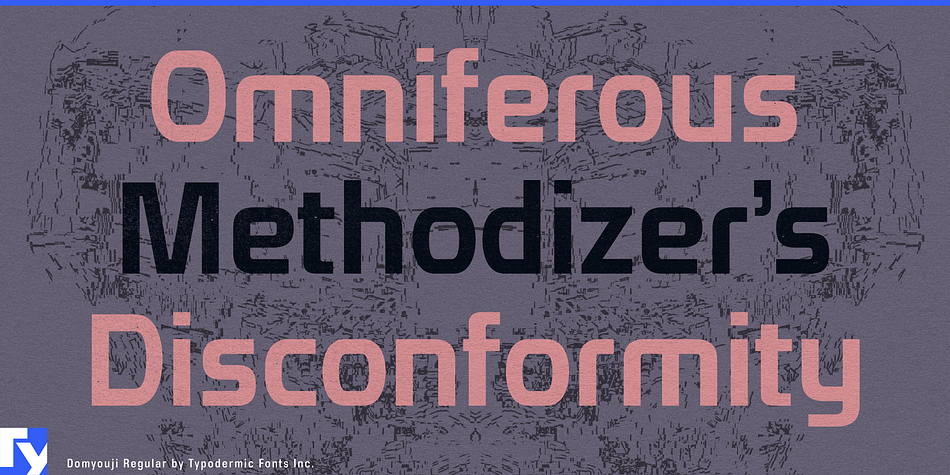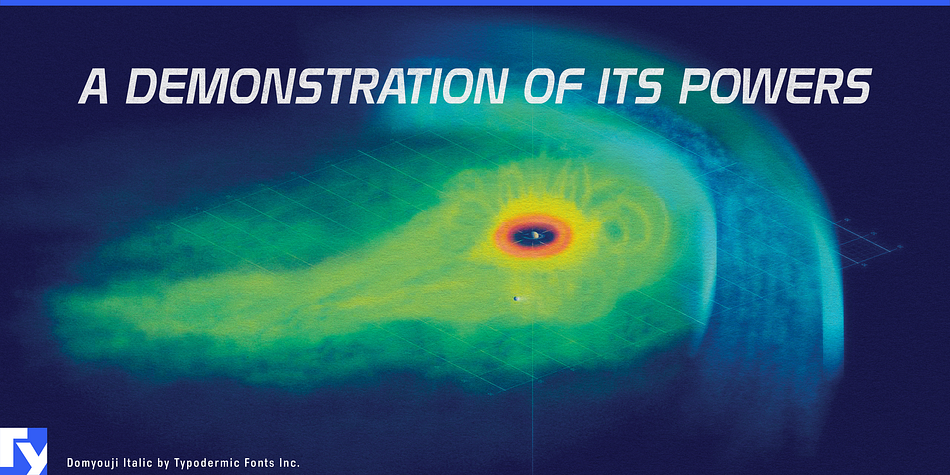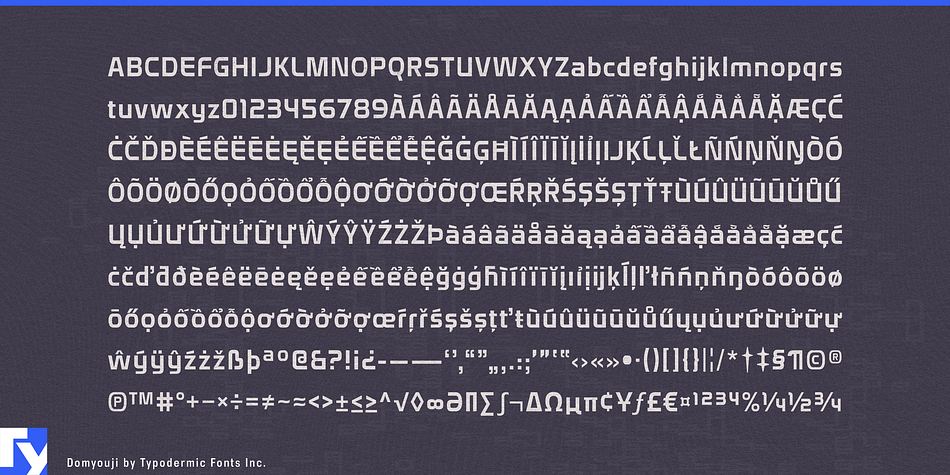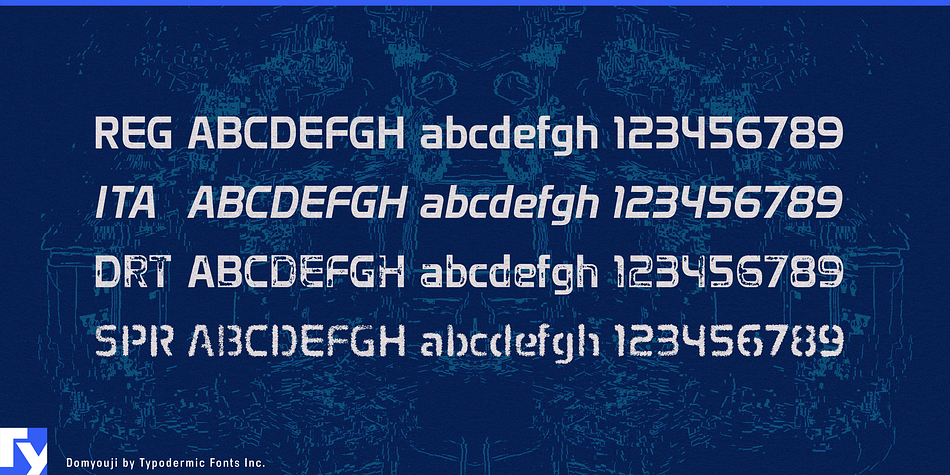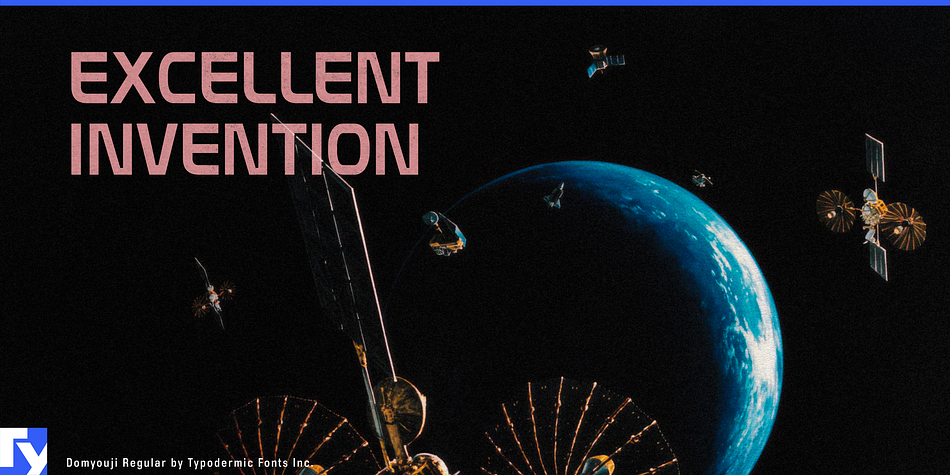
Domyouji is a multiple classification font family. This typeface has four styles and was published by Typodermic Fonts Inc.
Domyouji was designed as a high-tech body copy companion to Korataki. With a nod to Handel Gothic, Domyouji brings the square-sans into the 21st Century.